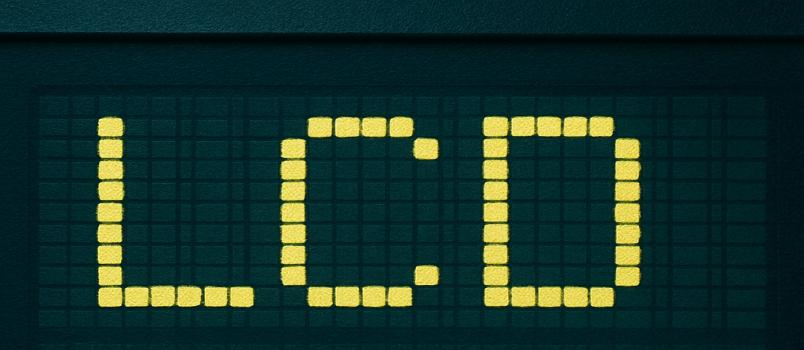
LCD fonts are a unique typeface style inspired by the segmented displays of calculators, digital clocks, and early electronic screens. These fonts mimic the blocky, pixelated look of liquid crystal display (LCD) technology, giving designs a retro-futuristic vibe.
Why Choose LCD Fonts?
LCD fonts are perfect for projects that need a techy or nostalgic feel. Whether you’re designing a sci-fi poster, a gaming interface, or a modern product label, these fonts add instant digital flair. Their clean, geometric shapes ensure readability while maintaining a distinct electronic aesthetic.
Popular Uses
• Gaming interfaces (scoreboards, HUDs)
• Tech product packaging (gadgets, accessories)
• Retro-themed designs (80s/90s nostalgia)
Since LCD fonts are often monospaced, they work well in coding displays and terminal-style designs. Their no-nonsense appearance makes them a favorite for minimalist tech brands.
Finding the Right Font
Many free and premium LCD fonts are available online, ranging from ultra-realistic segmented styles to more artistic interpretations.
If you want a sleek, digital look, LCD fonts are a versatile choice that bridges the gap between vintage and modern design. Try them out in your next project for an instant tech upgrade!